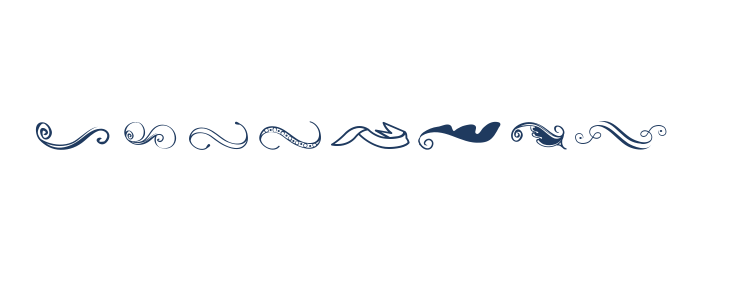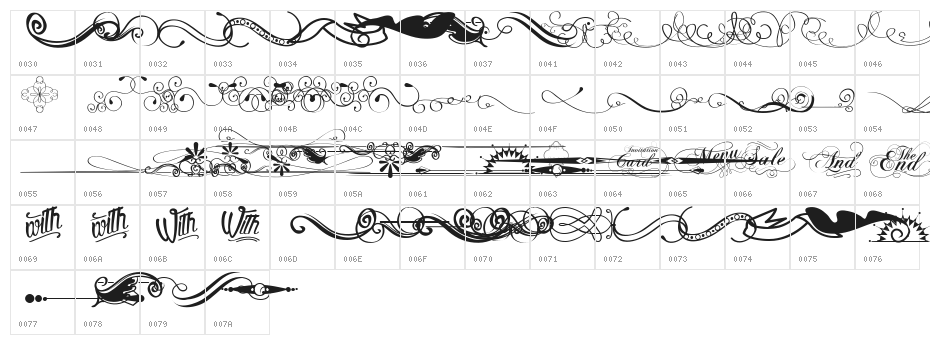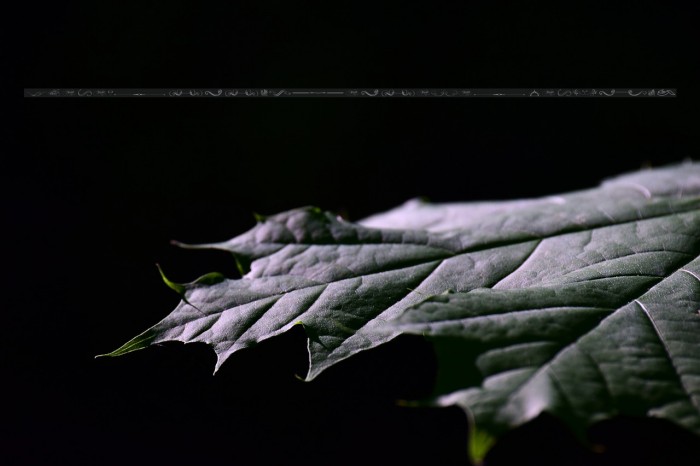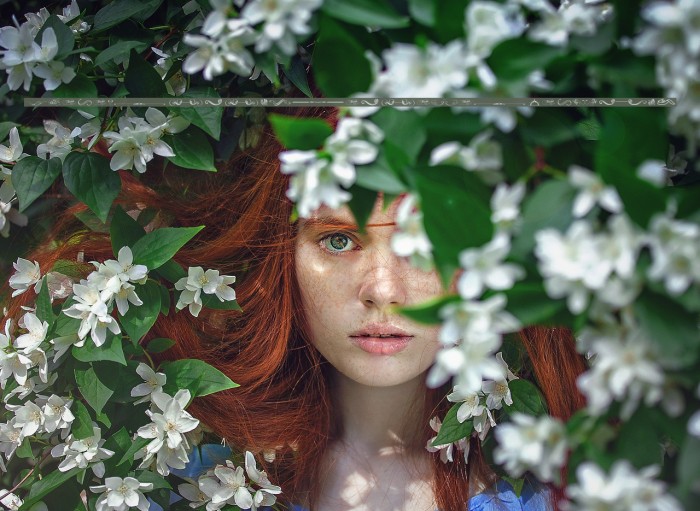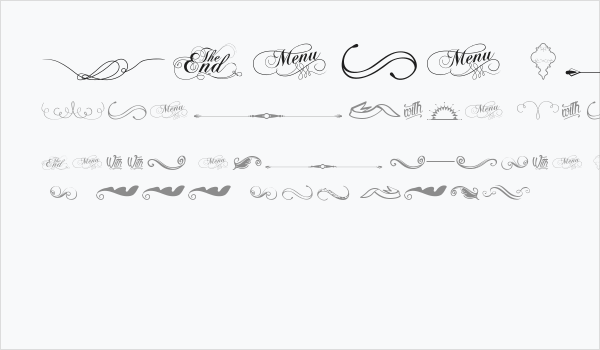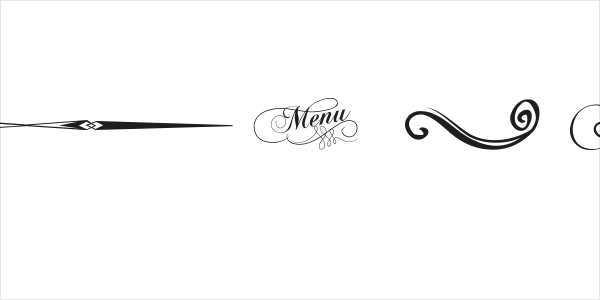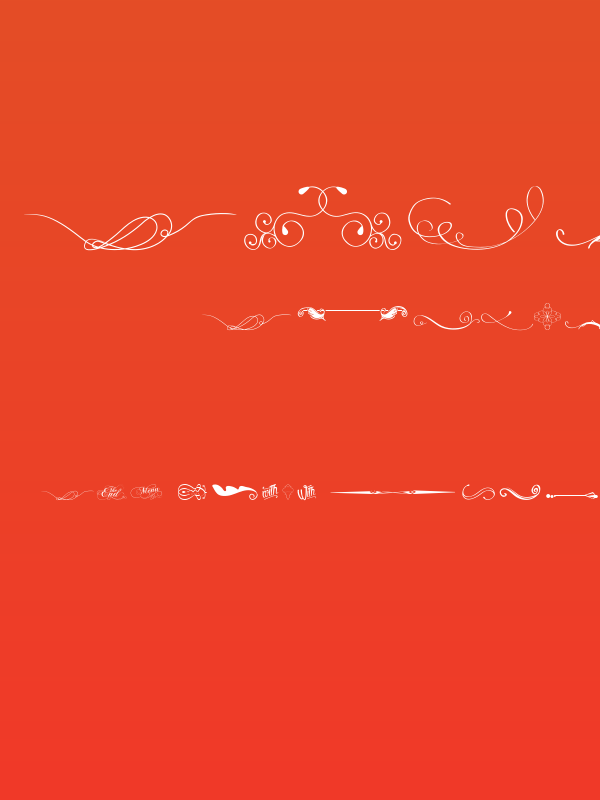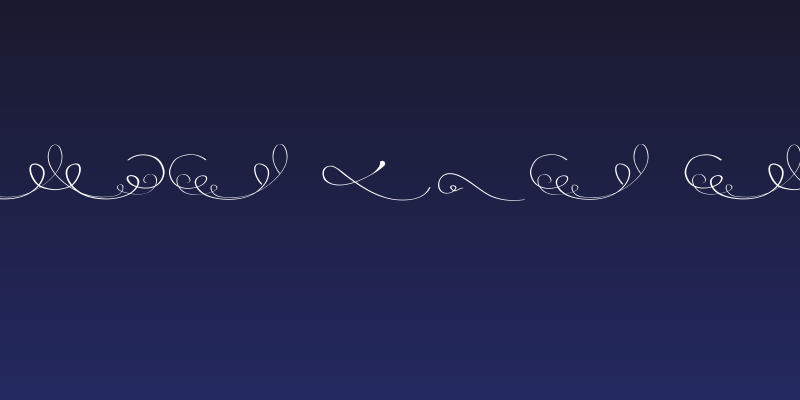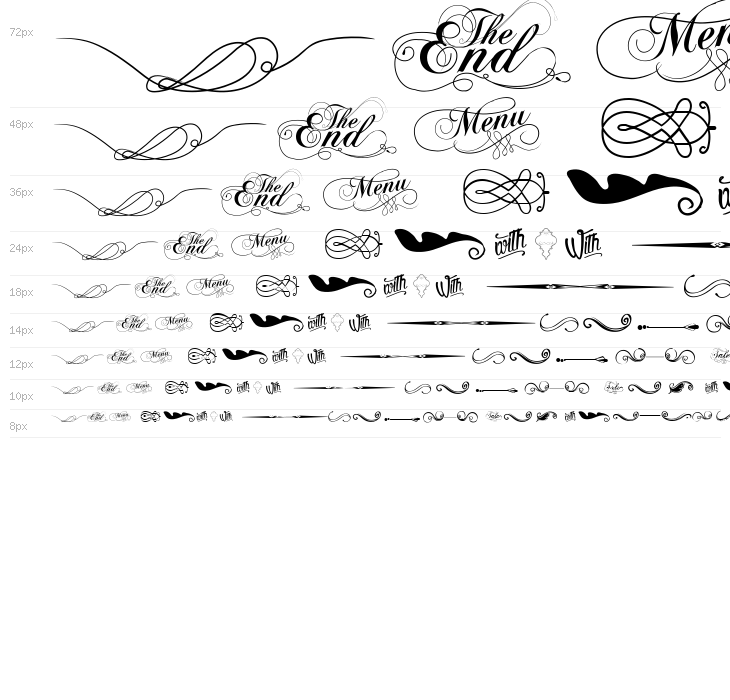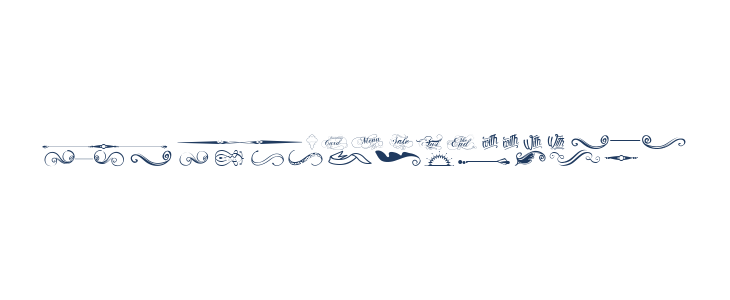
There can only be one Beaver Im it Font
There can only be one Beaver Im it Description
A collection of ornate decorative flourishes and borders, featuring intricate swirls, curls, and embellishments in varying weights and complexities. The designs range from delicate, thin lines to bold, filled shapes, suitable for ornamental purposes rather than textual communication.
| Overall Style | Vintage, Ornamental, Decorative |
| Use Case | Borders, Dividers, Decorative accents |
| Proposed Projects | Wedding invitations, certificates, decorative borders, vintage-style posters, greeting cards, scrapbooking, branding for luxury products. |